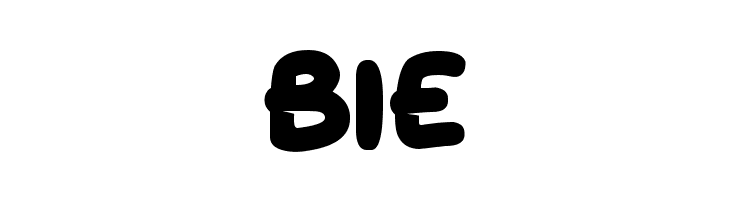
• Ghost Pumpkins
( Fonts by Hawtpixel )
A bold, Halloween-themed decorative font with ghostly and pumpkin-like characters.
• Pumpkins Are Cool
( Fonts by Misti's Fonts )
Whimsical pumpkin-themed decorative font with both solid and outlined styles.